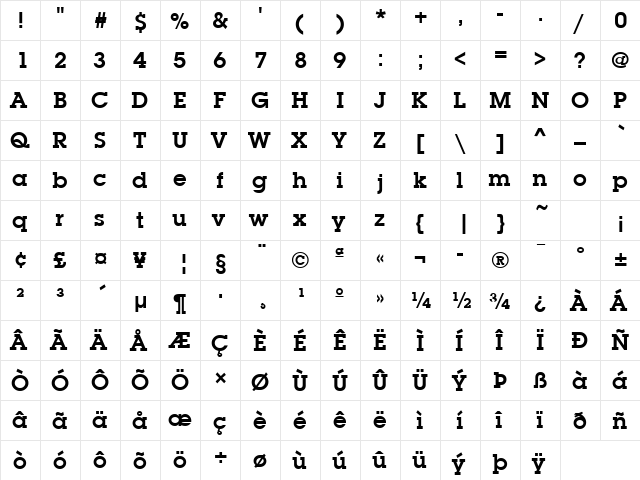
SquareSerif Bold
SquareSerif brings classic typographic sensibility to the table — its serifs and measured letterforms reflect centuries of print heritage. The heavy weight commands attention and anchors typographic hierarchies.